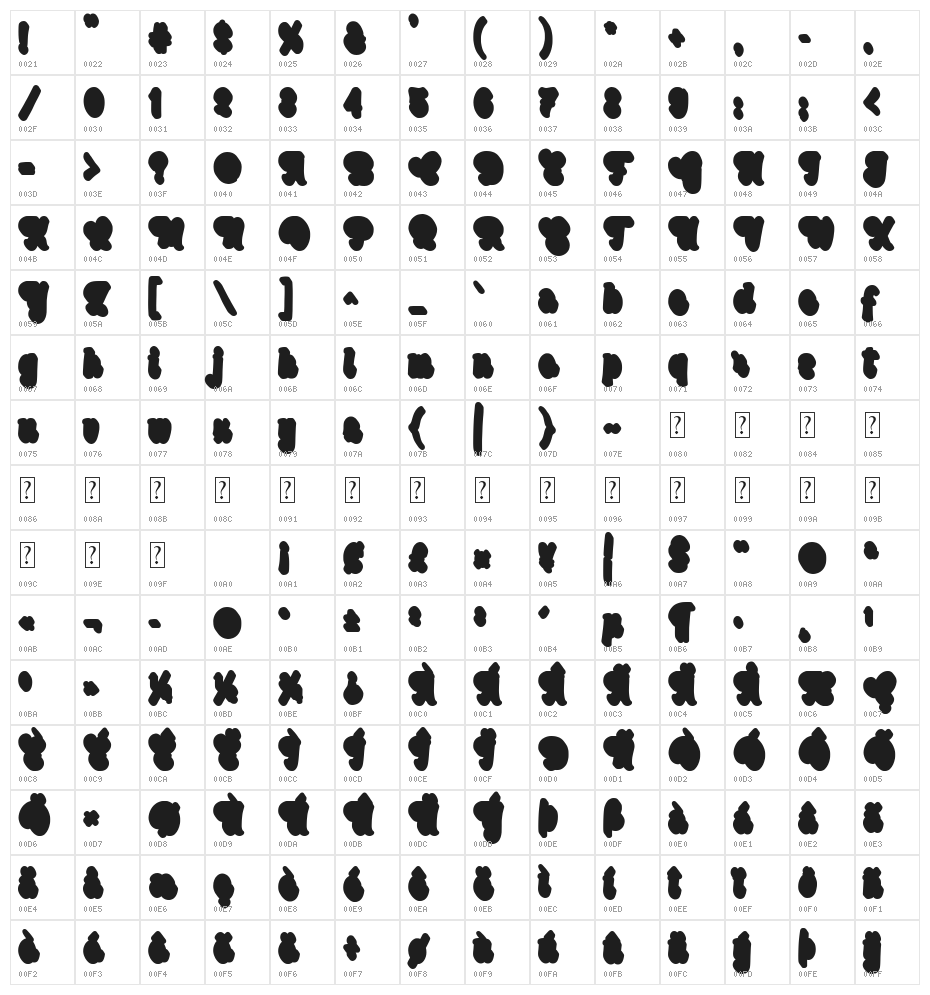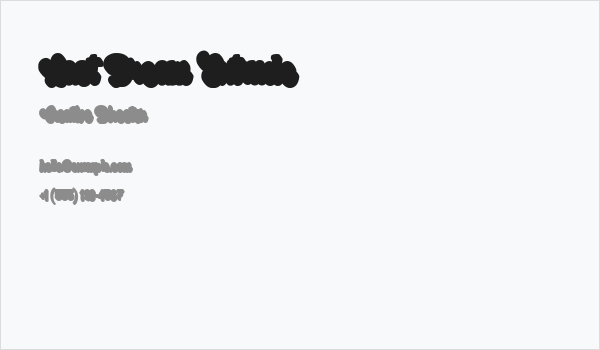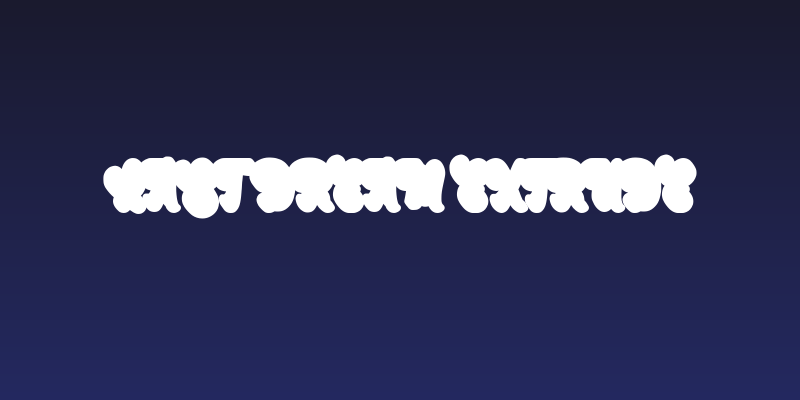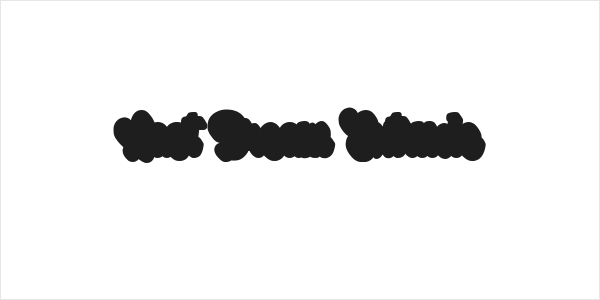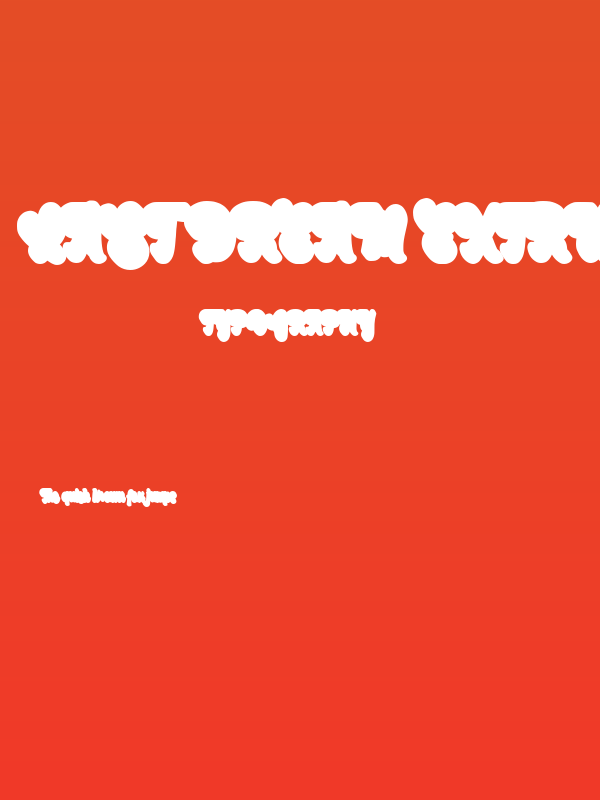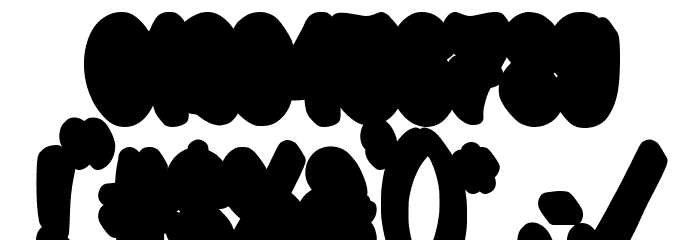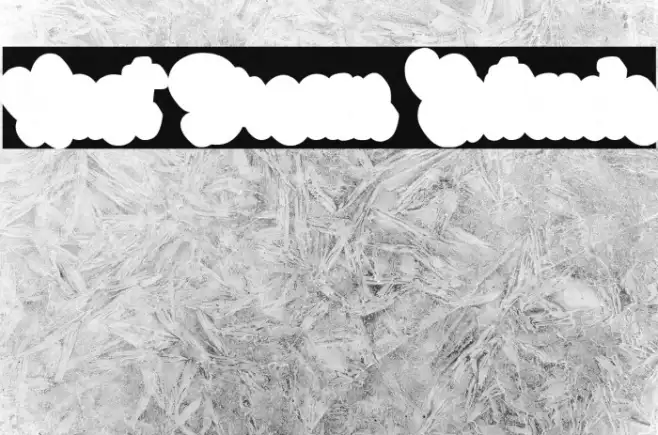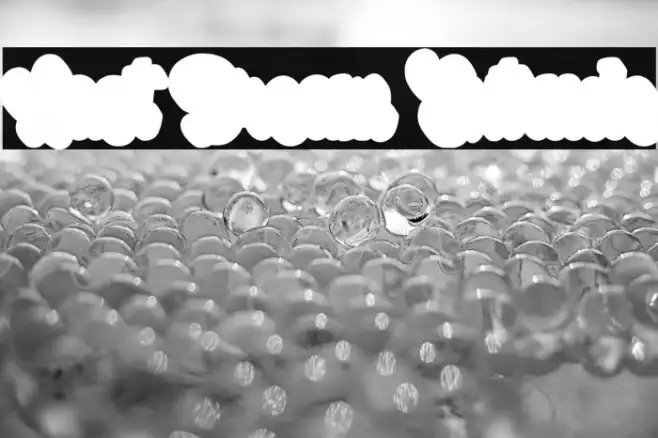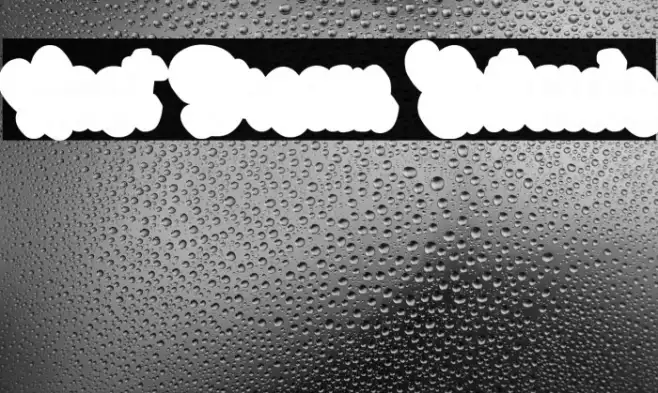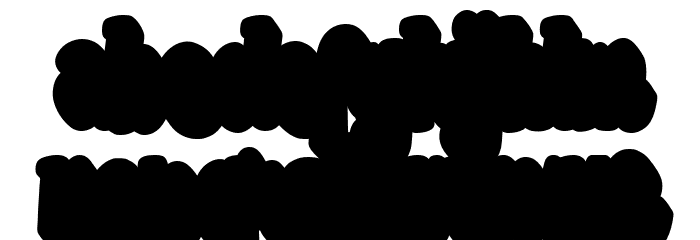
Last Dream Extrude Font
Last Dream Extrude Description
This font features a bold, playful style with a three-dimensional extruded effect. The characters are rounded and heavily weighted, giving them a cartoonish and fun appearance. The exaggerated thickness and depth create a sense of movement and energy, making it ideal for eye-catching designs. The font maintains a consistent width across all characters, contributing to its cohesive look. The spacing between characters is tight, enhancing the compact and robust feel. This style is perfect for projects that require a lively and dynamic visual impact.
| Proposed Projects | Ideal for children's book covers, playful posters, and vibrant branding materials. |